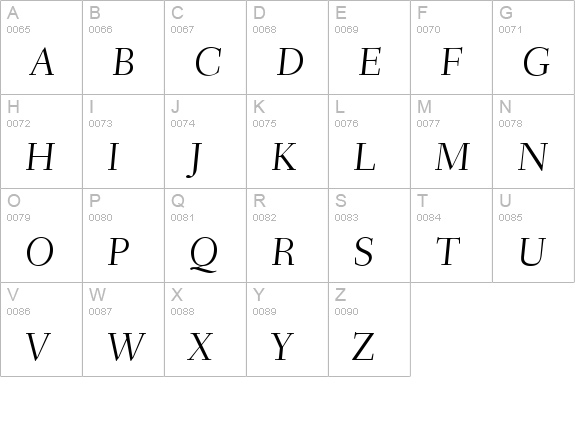
Fairfield LH 45 Caption Light Font Details
Fairfield LH 45 Caption Light is a refined, elegant variant in the Fairfield typeface family \xE2\x80\x94 well suited to elegant body text, refined sub-headings, and luxury branding.
Fairfield LH 45 Caption Light font is a modern and elegant typeface that exudes sophistication and professionalism. Its clean lines and subtle curves make it perfect for a wide range of design projects, from branding to editorial design. The light weight of this font adds a delicate touch to any layout, making it ideal for conveying a sense of refinement and elegance. Best of all, Fairfield LH 45 Caption Light font is available for free download at FontsMarket.com. This means you can easily access this versatile and stylish font to elevate your designs without any cost. Whether you're working on a personal project or a client's brand, Fairfield LH 45 Caption Light font is a valuable addition to your typography toolkit. Download it now and experience the beauty and versatility of this stunning typeface.